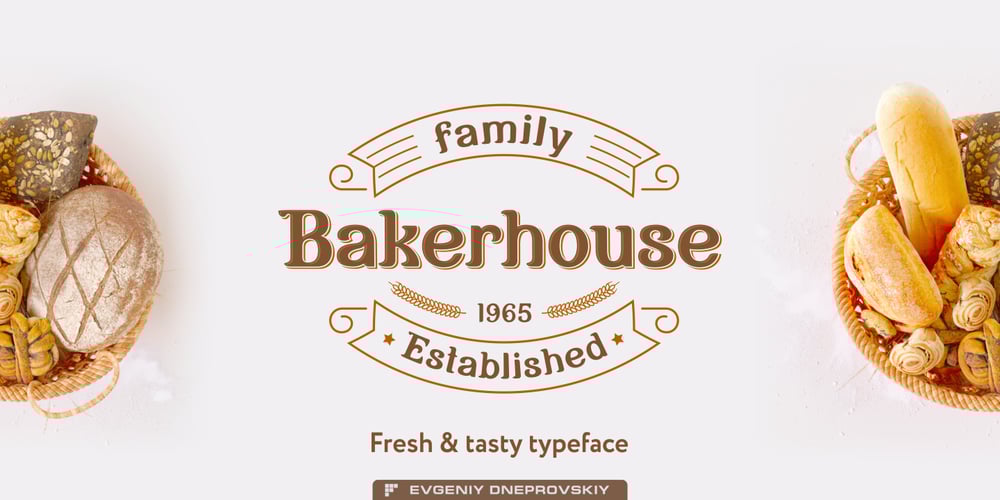
Bakeryhouse
Bakeryhouse font
Bakeryhouse Font Family was designed by Evgeny Dneprovsky and published by Fractal Font Factory. Bakeryhouse contains 4 styles and family package options. We present you a vintage type of layered font called “bakeryhouse”. This font includes four styles (including effect styles). This font will be clearly visible on any retro design such as poster, packaging label, logo, etc.